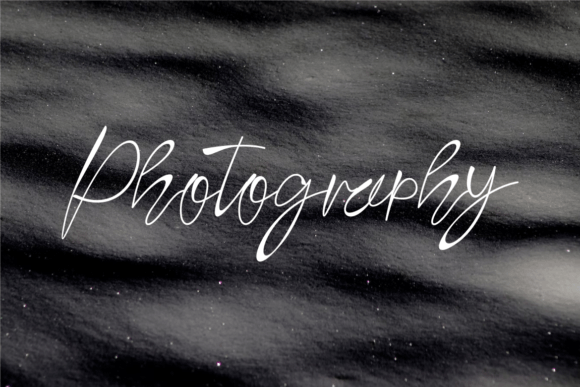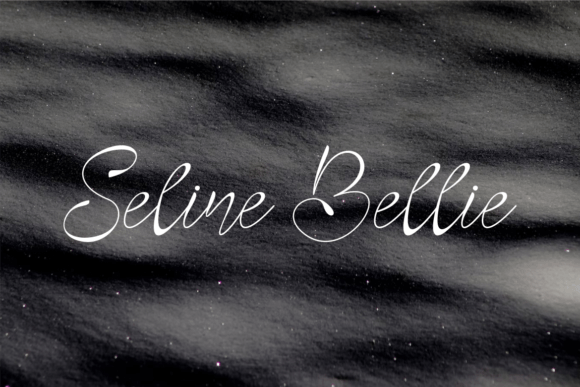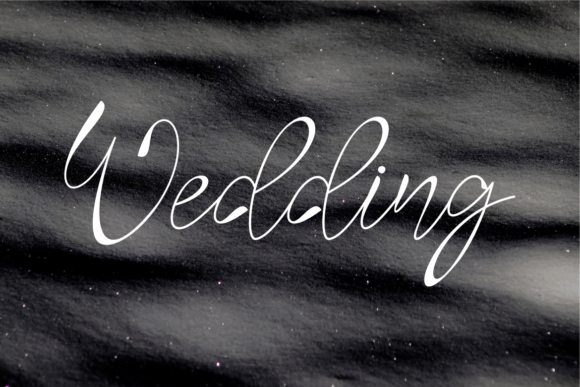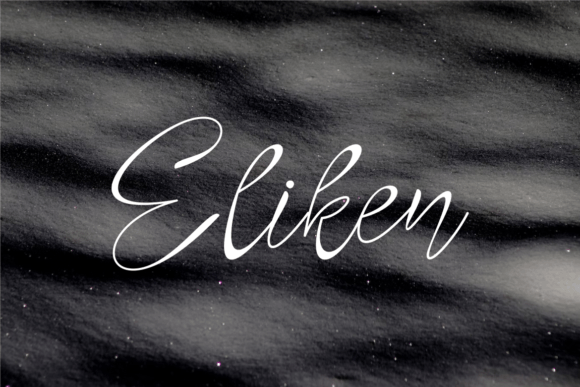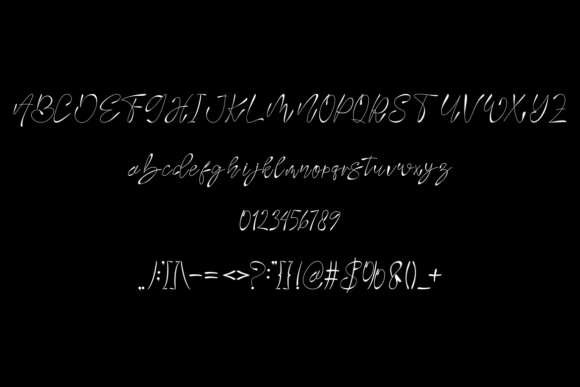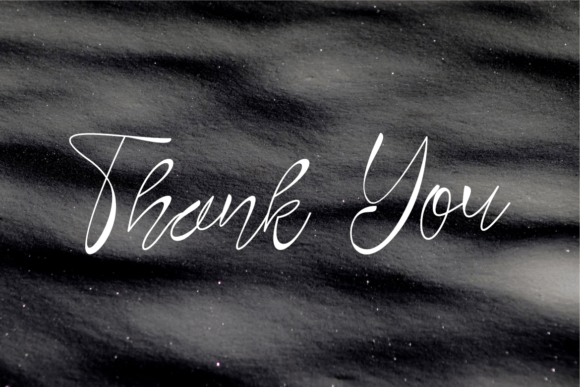
Introducing Akellinas Font: Elevate Your Designs with Elegance and Sophistication
In the world of typography, fonts play a crucial role in conveying the tone and personality of a design. For designers and crafters seeking a font that exudes beauty, class, elegance, and modernity, Akellinas Font is an exceptional choice. This sophisticated script and handwritten font is versatile and can be used for a wide range of projects, from signatures and stationery to logos, wedding designs, and more.
What Makes Akellinas Font Stand Out?
Akellinas Font is designed to make a statement. Its elegant and refined strokes bring a touch of sophistication to any design. The font’s unique blend of script and handwritten elements creates a distinctive look that is both modern and timeless. Whether you’re working on a logo, a wedding invitation, or a magazine cover, Akellinas Font is sure to impress.
Key Features of Akellinas Font
- Beautiful and Elegant: Akellinas Font boasts a refined and sophisticated aesthetic that adds a touch of luxury to any design.
- Versatile: This font is perfect for a wide range of projects, including signatures, stationery, logos, wedding designs, typography quotes, magazine or book covers, website headers, clothing, branding, and packaging design.
- Modern and Timeless: Akellinas Font’s unique blend of script and handwritten elements creates a look that is both modern and timeless.
- Easy to Read: Despite its elegant and refined strokes, Akellinas Font remains easy to read, making it perfect for body text and headlines.
Use Cases for Akellinas Font
Akellinas Font’s versatility makes it an excellent choice for various design projects. Here are some use cases to inspire you:
- Signatures: Add a touch of elegance to your signatures with Akellinas Font.
- Stationery: Create beautiful and professional-looking stationery with this sophisticated font.
- Logos: Use Akellinas Font to create a unique and memorable logo for your brand.
- Wedding Designs: Make your wedding invitations, programs, and decorations truly special with Akellinas Font.
- Typography Quotes: Create stunning typography quotes with Akellinas Font and add a touch of elegance to your designs.
- Magazine or Book Covers: Use Akellinas Font to create eye-catching magazine or book covers that stand out.
- Website Headers: Add a touch of sophistication to your website headers with Akellinas Font.
- Clothing: Create beautiful and stylish clothing designs with Akellinas Font.
- Branding: Use Akellinas Font to create a consistent and professional brand image.
- Packaging Design: Make your packaging designs truly special with Akellinas Font.
Tips for Using Akellinas Font
To get the most out of Akellinas Font, here are some tips to keep in mind:
- Pair with Other Fonts: Experiment with pairing Akellinas Font with other fonts to create a unique and visually appealing design.
- Use Different Sizes: Use different sizes of Akellinas Font to create visual hierarchy and add emphasis to your design.
- Experiment with Colors: Try out different colors with Akellinas Font to create a design that matches your brand’s personality.